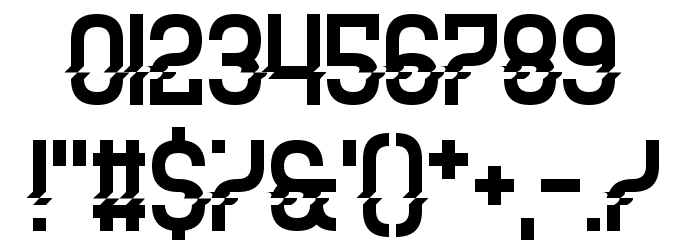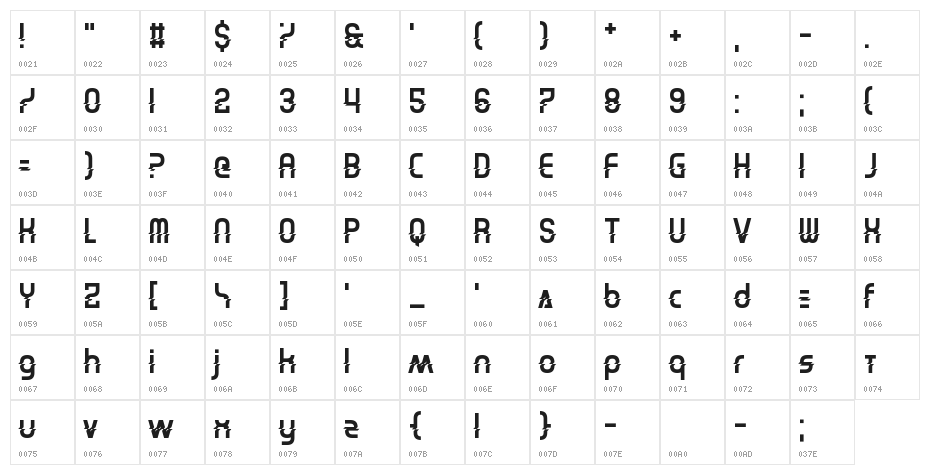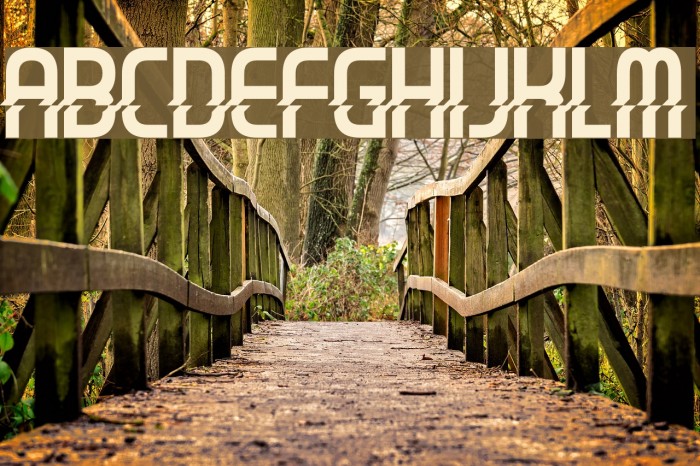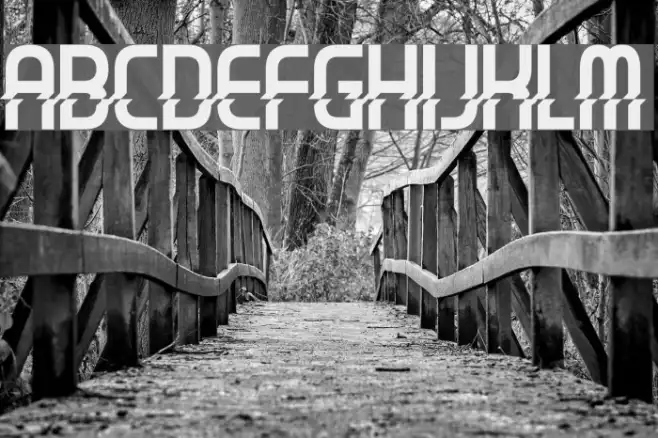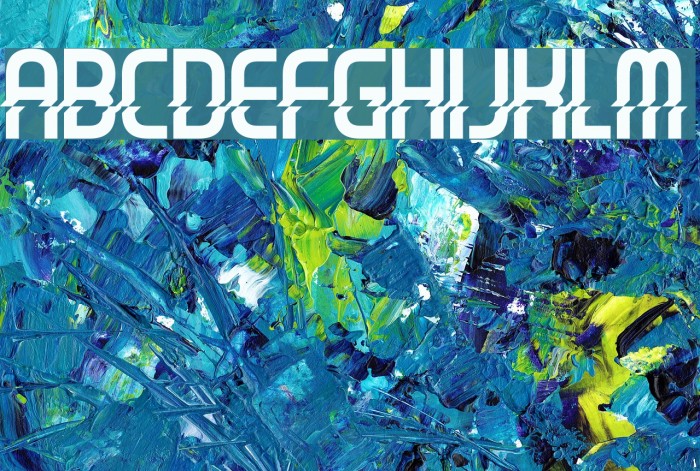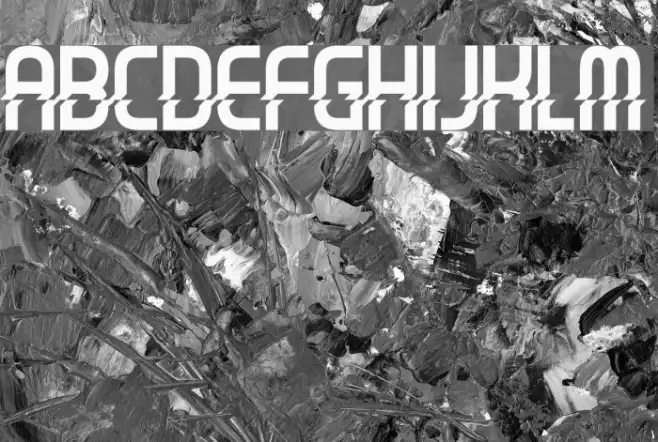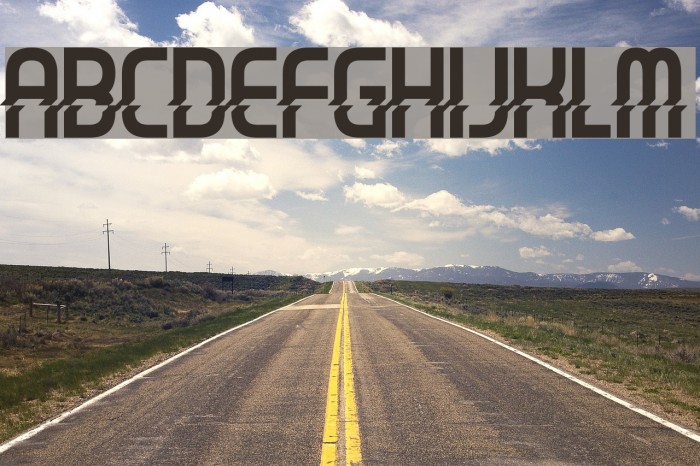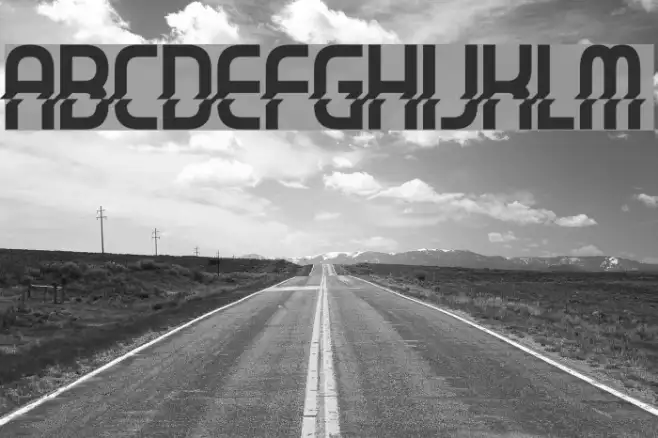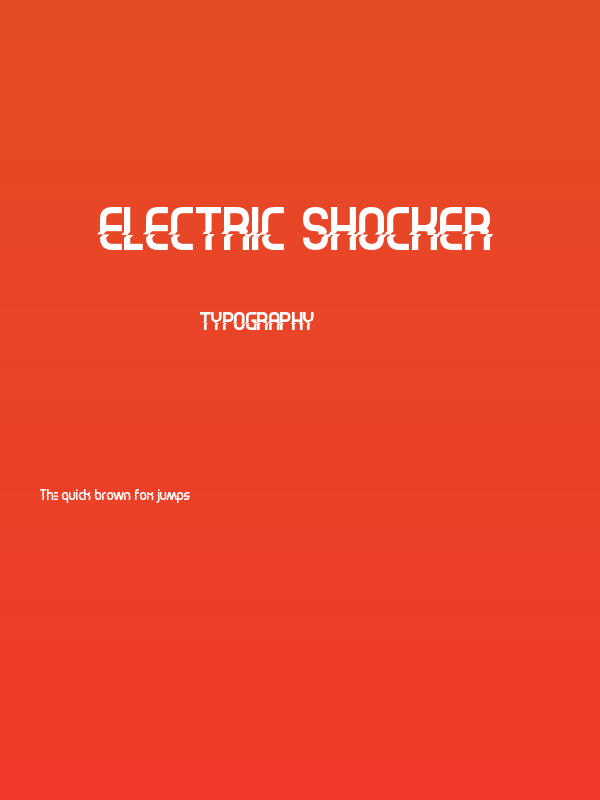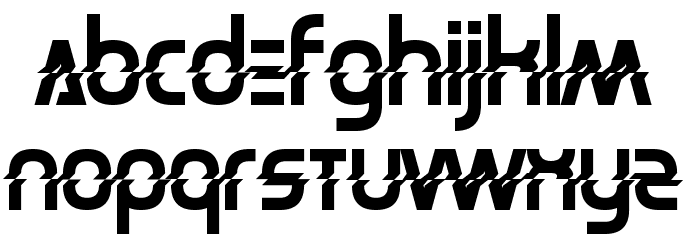
Electric Shocker Font
Electric Shocker Description
This font presents a striking and dynamic appearance with its bold, geometric letterforms that are sliced horizontally, creating a sense of motion and energy. The uppercase and lowercase letters maintain a consistent width, contributing to a uniform look, while the sharp angles and clean lines enhance its modern aesthetic. The numbers and special characters follow the same design principles, ensuring a cohesive visual style across all elements. The unique slicing effect gives the font a futuristic and edgy vibe, making it ideal for projects that require a bold statement.
| Proposed Projects | Ideal for branding, posters, album covers, and any project needing a futuristic or energetic feel. |